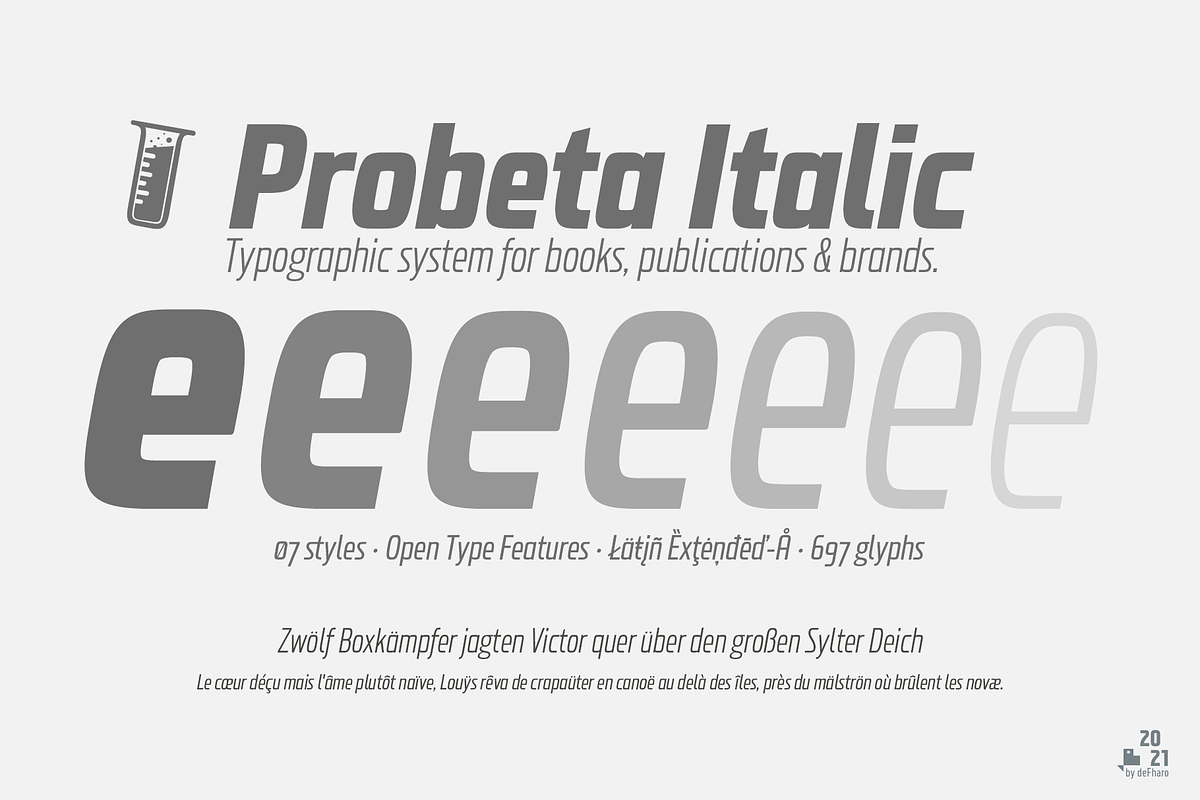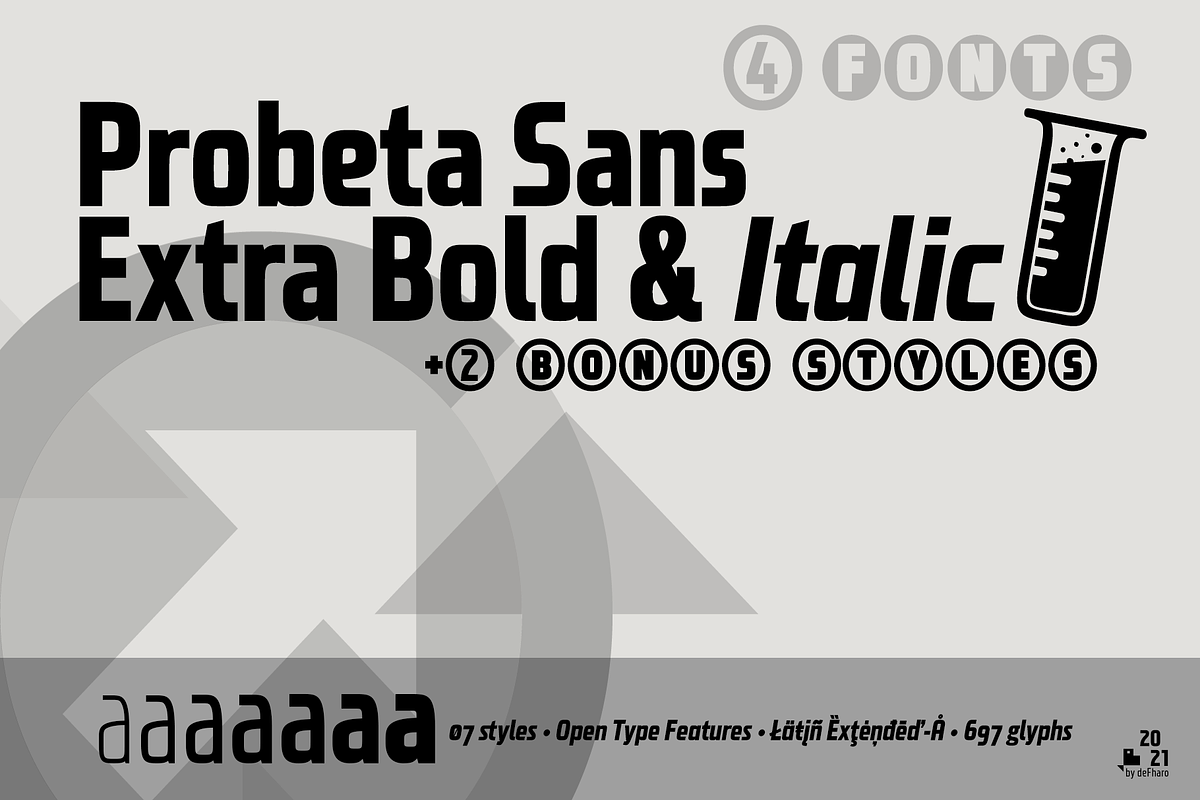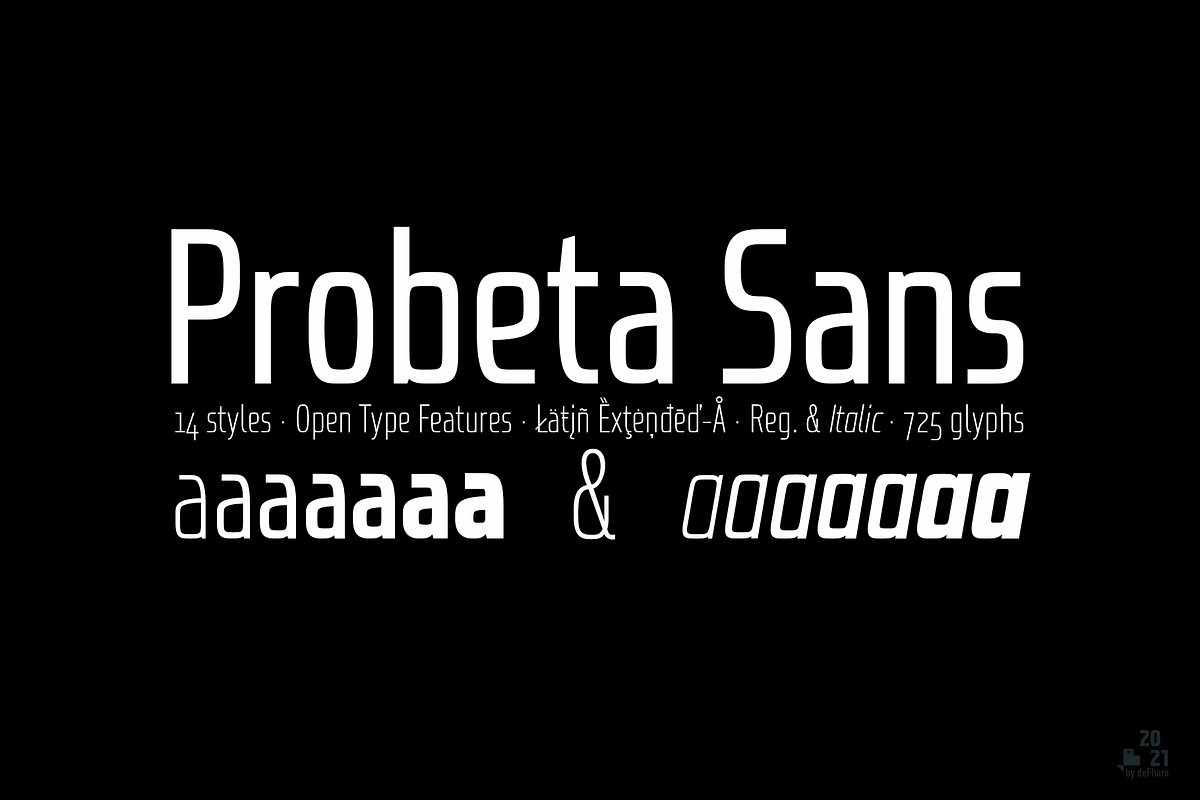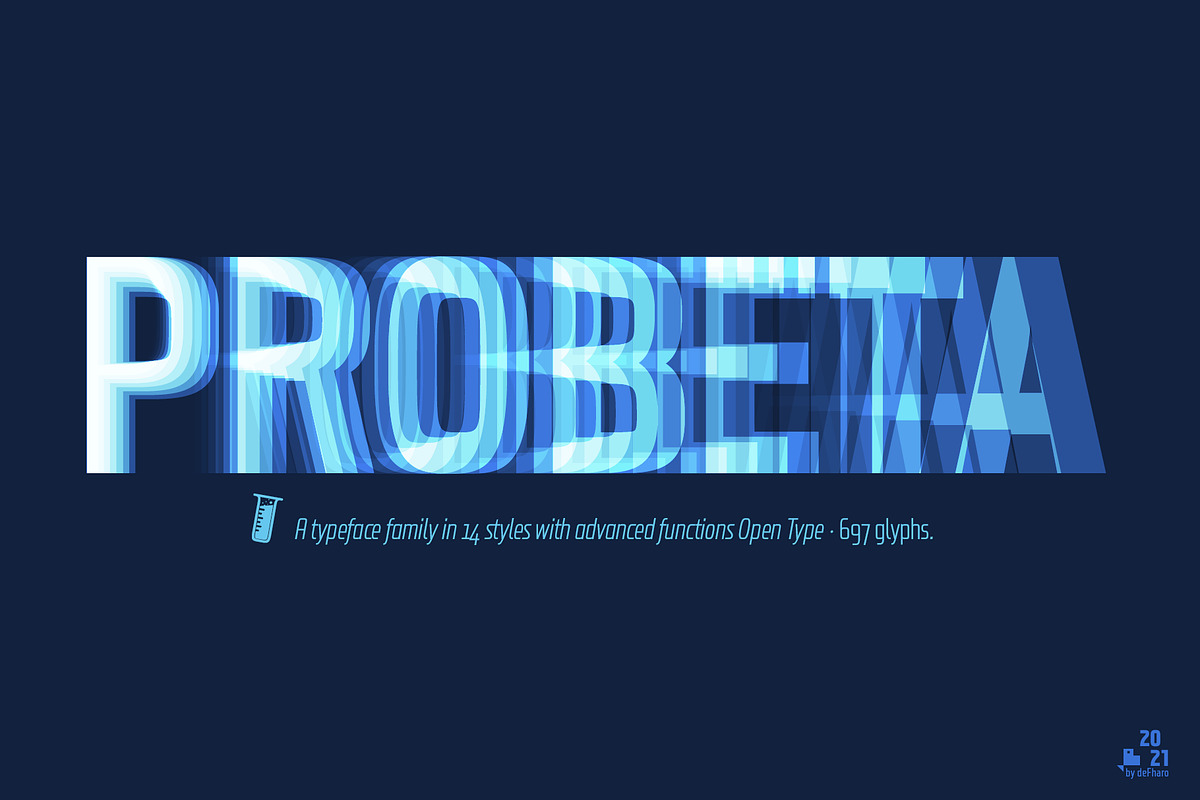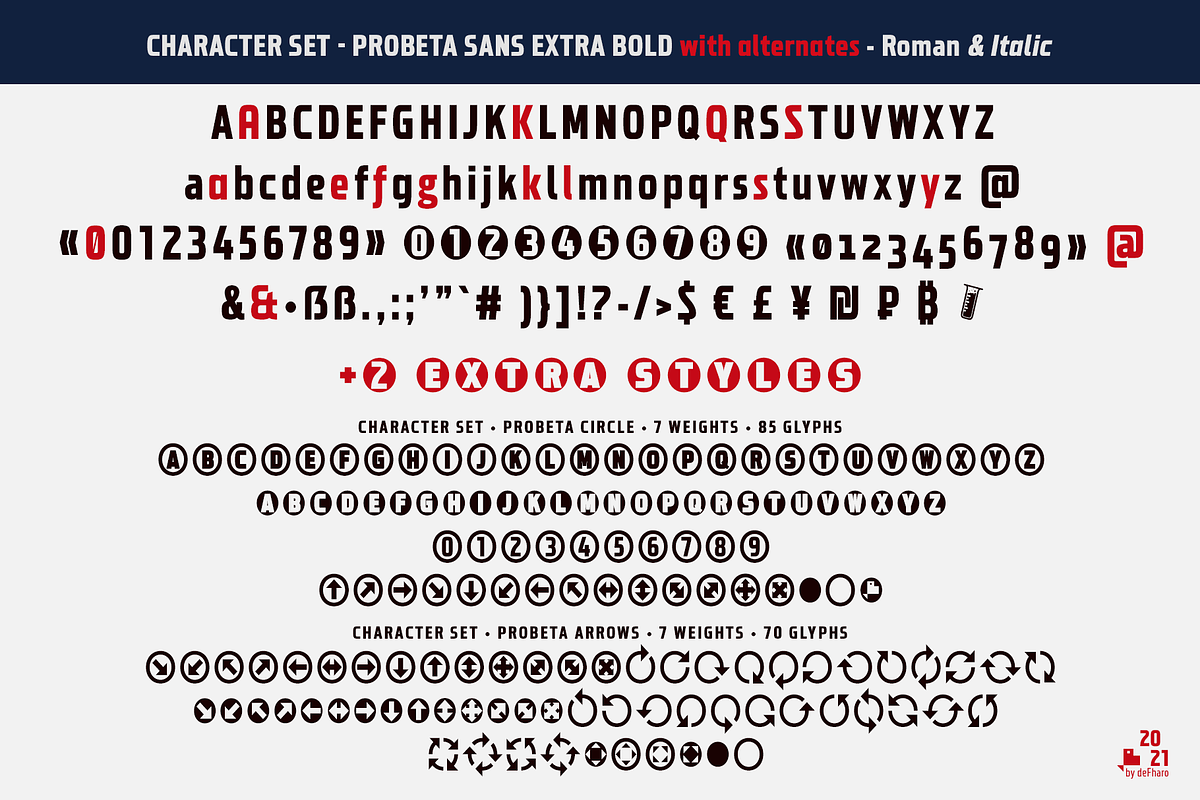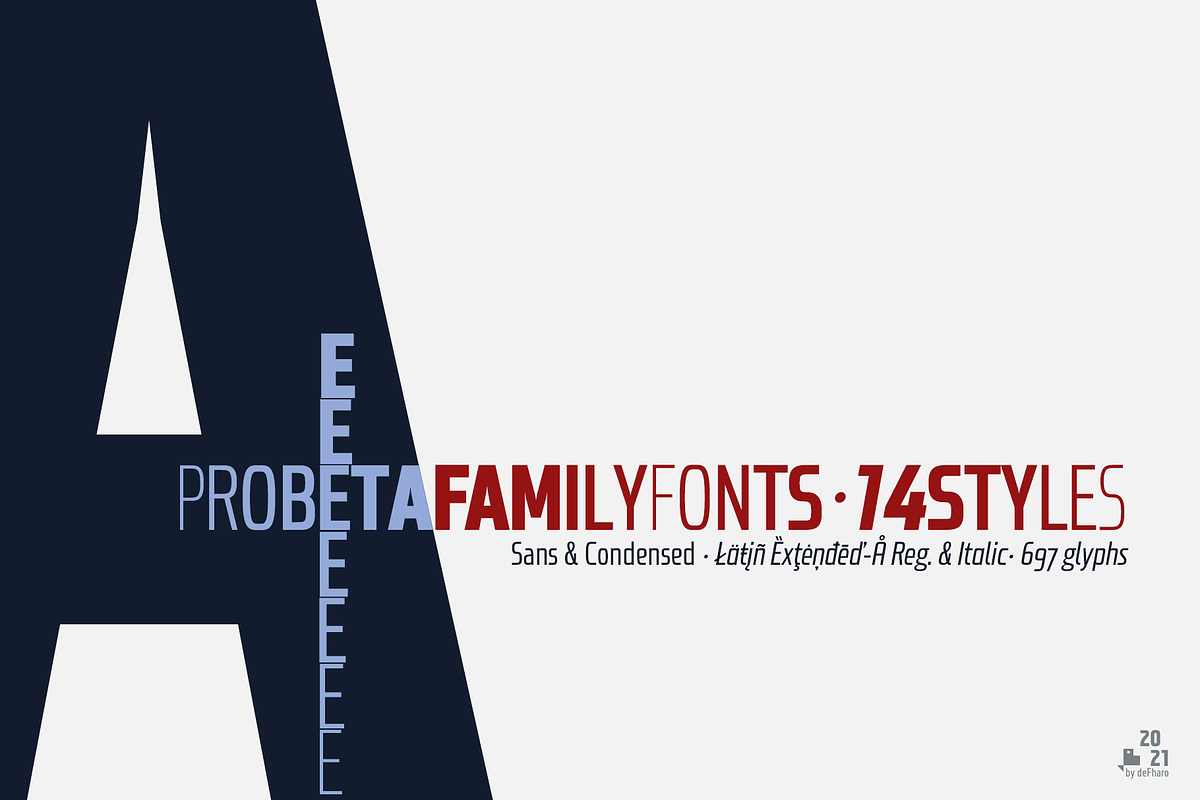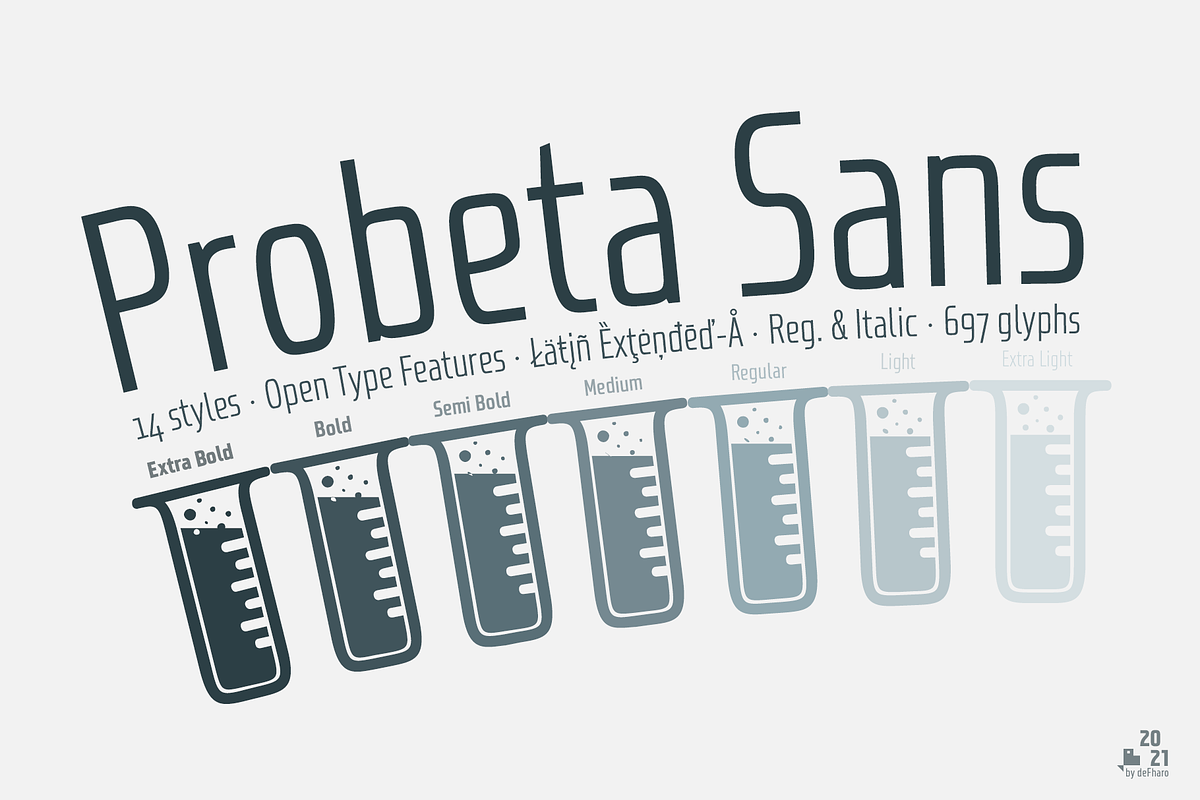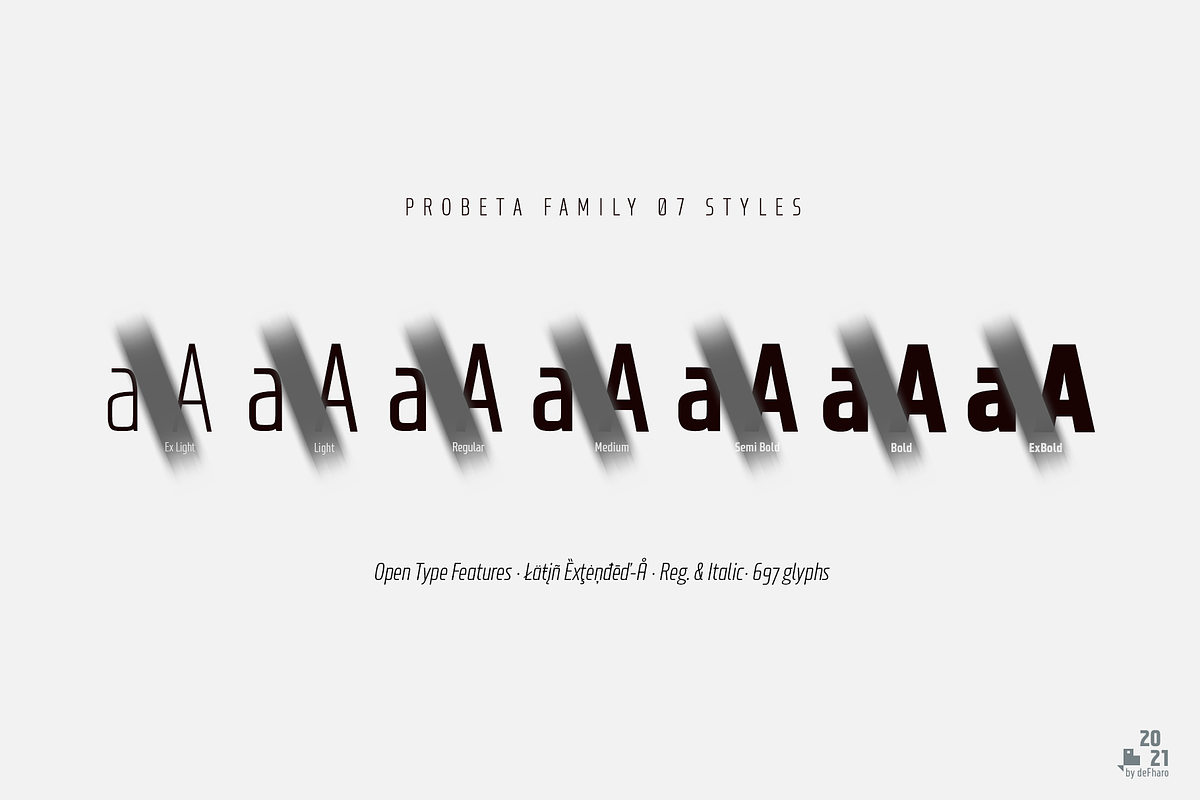
Probeta Extra Bold & Italic -4 fonts
🧪 Probeta is an exclusive Sans Serif font family, with condensed proportion. The font family consists of 7 weights (Extra Light, Light, Regular, Medium, Semi Bold, Bold and Extra Bold) and the italic versions, with their own personality. Typeface family with maximum readability, perfect for use in graphic design, media, editorial, advertising and web. 👍 Includes alternate letters, dynamic fractions, currency symbols, 7 number sets, and more
• Includes two extra styles: Probeta Circle Extra Bold & Probeta Arrows Extra Bold.💬
- 🔻Probeta Sans Extra Bold & Italic + 2 bonus styles (4 fonts)
- 697 glyphs. Latin Extended-A • OTF & TTF
- Probeta Sans & Italic includes the symbol of Bitcoin and currency symbols.
- OpenType Features: Additional languages, All Alternates, Alternate Annotation Forms, Bitcoin, Capital Spacing, Contextual Alternates, Denominators, Discretionary Ligatures, Extended Fractions, Historical Forms, Inferiors, Kerning, Localized Forms, Numerators, Oldstyle Figures, Ordinals, Scientific Inferiors, Slashed Zero, Standard Ligatures, Stylistic Set, Subscript, Superior letters, Superiors, Superscript.